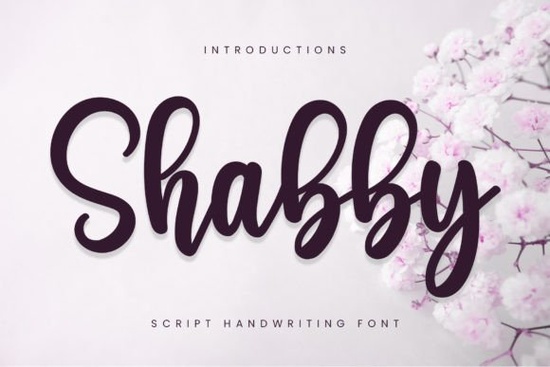
If you’ve been searching for a handwritten script that feels personal, soft, and just a little bit whimsical, Shabby Font might be exactly what your next project needs. It’s the kind of typeface that doesn’t shout for attention but quietly charms anyone who sees it perfect for designers who want elegance without stiffness, or crafters looking to add warmth to their handmade cards and labels.
This isn’t one of those overly ornate scripts that take over your layout. Shabby keeps things light and readable while still feeling special. Think of it as the typographic equivalent of a handwritten note left on a kitchen counter sweet, familiar, and full of personality. You’ll find it especially useful if you’re working on wedding invitations, boutique branding, or even social media graphics where you want to feel close to your audience.
What kinds of projects does Shabby Font work best for?
Because of its gentle curves and relaxed flow, this font shines in contexts where emotion matters more than formality. Here are some real-world uses we’ve seen work beautifully:
- Wedding stationery from save-the-dates to menu cards, it adds intimacy without being fussy.
- Small business logos especially bakeries, florists, or handmade goods shops that want to feel approachable.
- Greeting cards and gift tags whether digital or printed, it gives that “hand-touched” vibe people love.
- Fashion lookbooks or packaging pairs well with minimalist photography and natural textures.
- Social media quotes or promotional banners stands out against flat backgrounds without overwhelming the message.
It also layers nicely with cleaner sans-serifs if you need contrast try pairing it with something like Rain Font for headlines and body text combos that feel balanced yet expressive.
How does it compare to other casual script fonts?
Not all handwritten fonts are created equal. Some lean too stiff, others too chaotic. Shabby sits comfortably in the middle legible enough for short paragraphs but decorative enough to serve as a display face.
If you’ve used Fancy Script, you know how dramatic and swirly that one can get. Shabby is much more grounded. Or if you’ve tried This Brother Font, which has a playful, almost childlike bounce, Shabby offers a more mature, romantic tone. Even compared to Hello Andyanduo, which leans modern and trendy, Shabby feels timeless like something you’d find tucked inside an old journal or stitched onto a linen napkin.
Is it easy to use for non-designers?
Absolutely. One thing users consistently mention is how intuitive Shabby feels even if you’re not deep into typography. Most versions come with OpenType features (like contextual alternates and ligatures), so your design software will automatically swap in nicer letter combinations as you type. No manual tweaking needed.
For print-on-demand sellers, that’s a huge plus. You won’t have to worry about letters clashing or spacing looking off when customers order mugs, tote bags, or stickers with your designs. And because it’s available in multiple weights or styles depending on the version, you can adjust thickness to suit different products thin for delicate jewelry tags, bolder for canvas totes.
Any tips for getting the most out of this font?
Yes and they’re simple:
- Give it breathing room. Don’t cram it into tight spaces. Let those loops and tails stretch out a bit.
- Use sparingly. A little goes a long way. Even one word in Shabby can set the mood for an entire layout.
- Pair with texture. It looks gorgeous over watercolor washes, kraft paper, or fabric backgrounds.
- Try mixing cases. Sometimes lowercase + title case combos create rhythm and visual interest.
And if you’re ever stuck on styling, check out how others are using it Creative Fabrica’s community uploads often include mockups and tutorials. You might also browse similar vibes like other script fonts in the same family for backup options or layered effects.
Whether you’re designing your own wedding suite, launching a small product line, or just making something beautiful for fun, Shabby Font brings a quiet joy to the process. It doesn’t demand attention it invites connection.